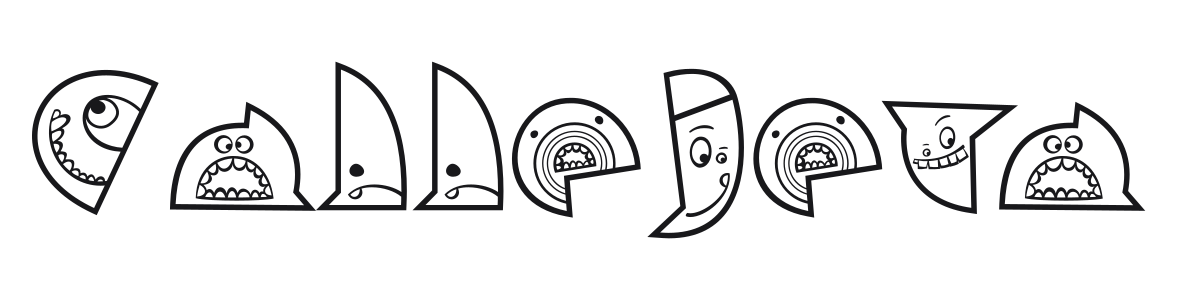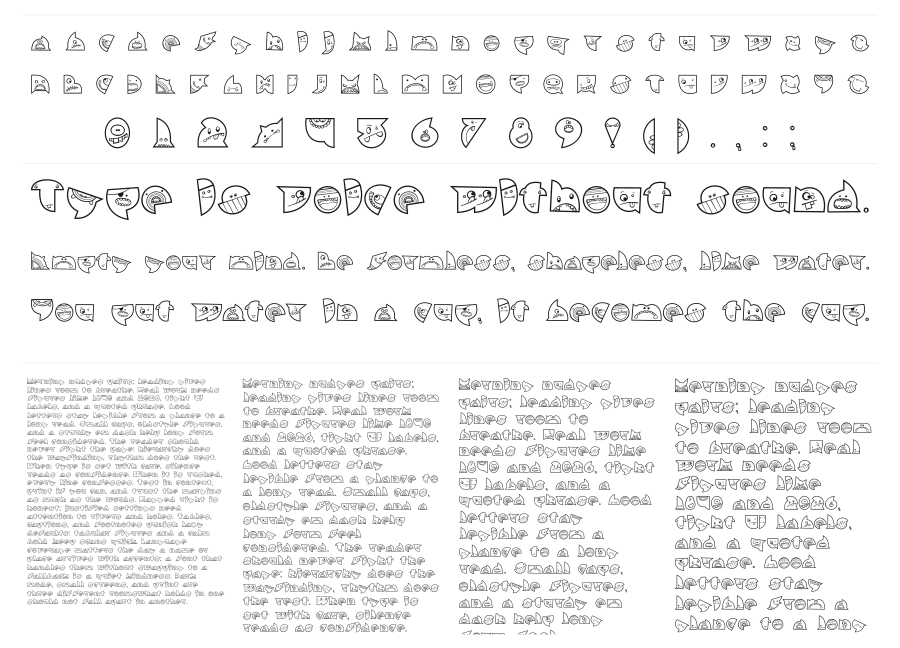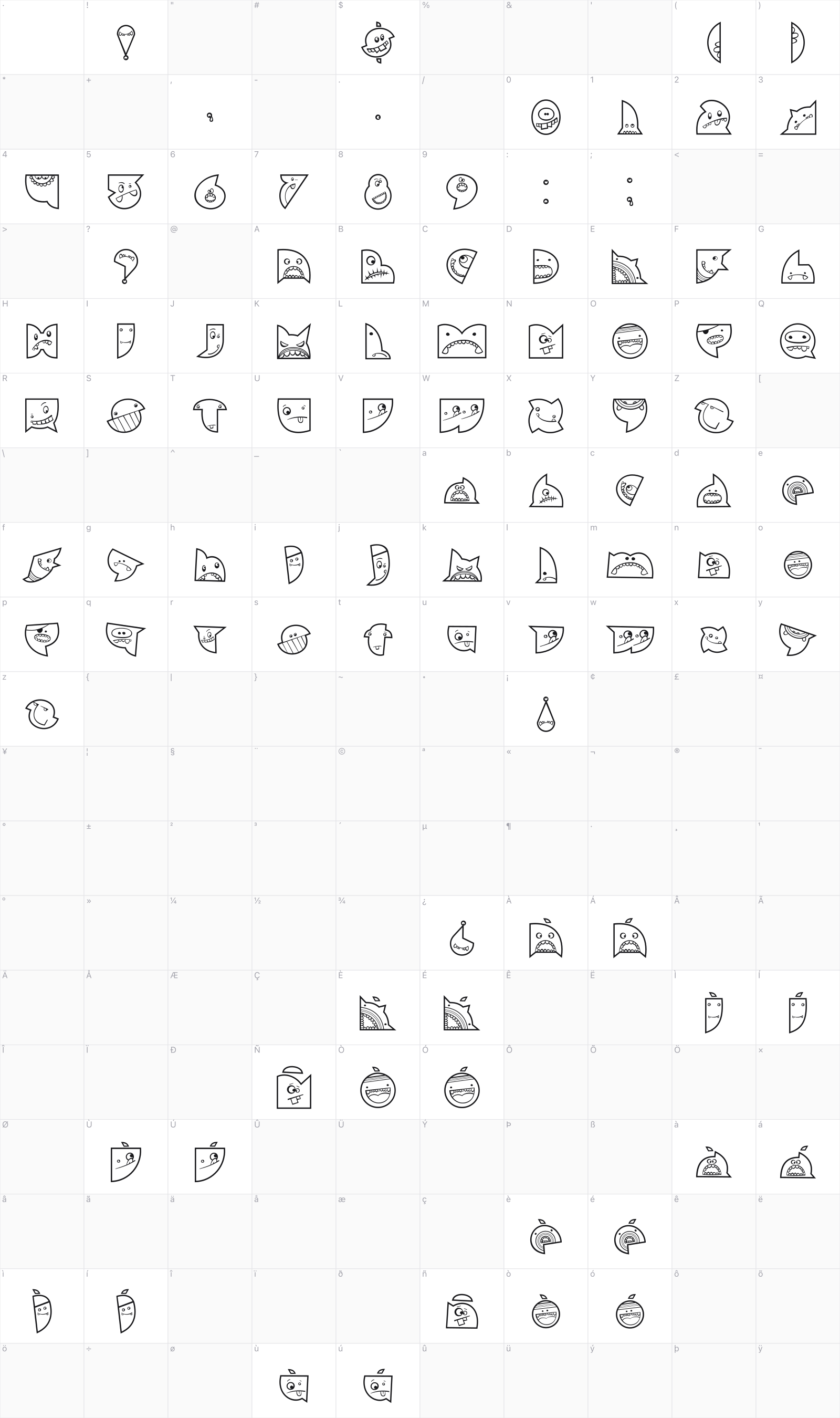
Callejera
Callejera is a novelty display font inspired by the street murals of Santiago, Chile, where each character is a unique cartoon monster or creature face. The thin outlines, expressive teeth and eyes, and wildly varied silhouettes give it a raw, hand-drawn graffiti energy. It comes in three variants and works best at large sizes where each character's personality can be appreciated.